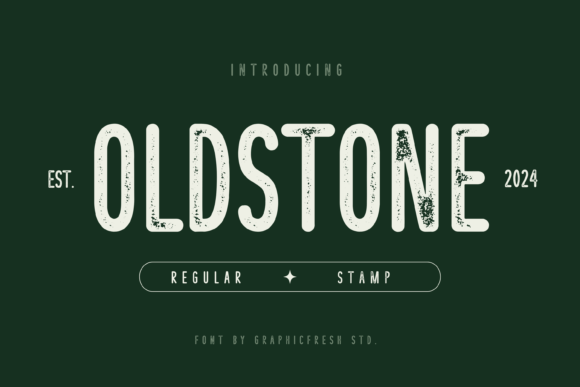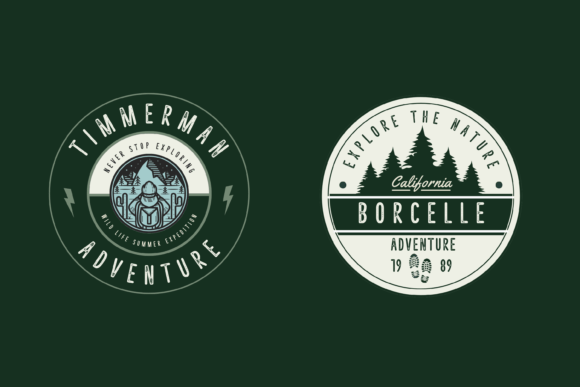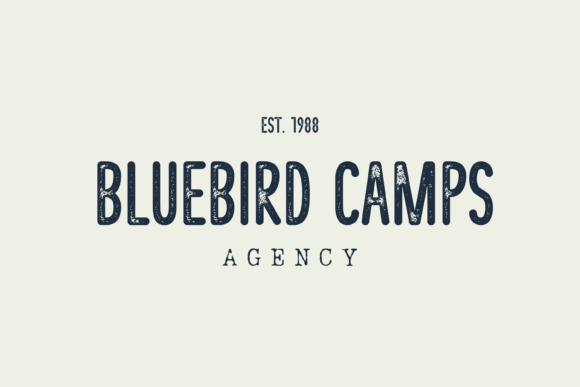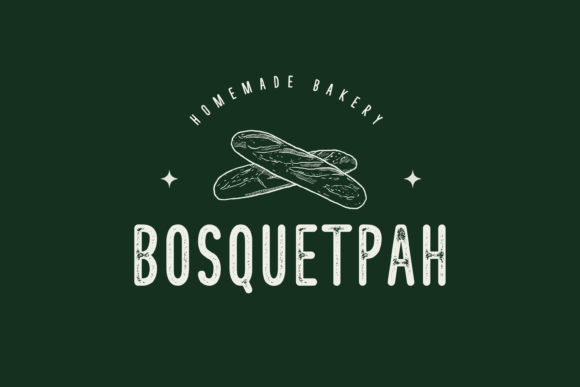
Oldstone Font: Rustic Sans Serif for Vintage Logo Design & Branding
About the Oldstone Font
Welcome to the world of Oldstone Font, a typeface that will inspire your next great project. Oldstone combines the simplicity of sans serif with a playful rounded style, offering a fresh take on vintage and letterpress designs. This font is ideal for projects that require a touch of warmth and friendliness without losing the classic and professional appeal of sans serif. Perfect for branding, packaging, and digital design, it provides readability and a charming aesthetic. Its unique blend of vintage charm and modern clarity makes it a versatile choice for a variety of design needs.
Oldstone’s friendly yet sophisticated personality makes it a strong choice for branding projects needing a touch of vintage charm, particularly for food, beverage, or lifestyle brands. It also works well in short-form editorial design, such as magazine headlines or short-form content, and on packaging where its readability at larger sizes is advantageous. However, avoid using Oldstone for lengthy body text or UI elements; its rounded forms can reduce readability in smaller sizes or continuous paragraphs.
Pairing Oldstone effectively depends on the desired emphasis. For a more playful feel, consider pairing it with a contrasting geometric sans-serif like Futura or a script font with a similar vintage vibe. To create a more refined and classic look, a serif like Garamond or a neutral sans-serif like Lato would be excellent choices.
The overall mood is approachable and optimistic without being overly whimsical. This makes it well-suited for brands conveying warmth, approachability, and a sense of timelessness.